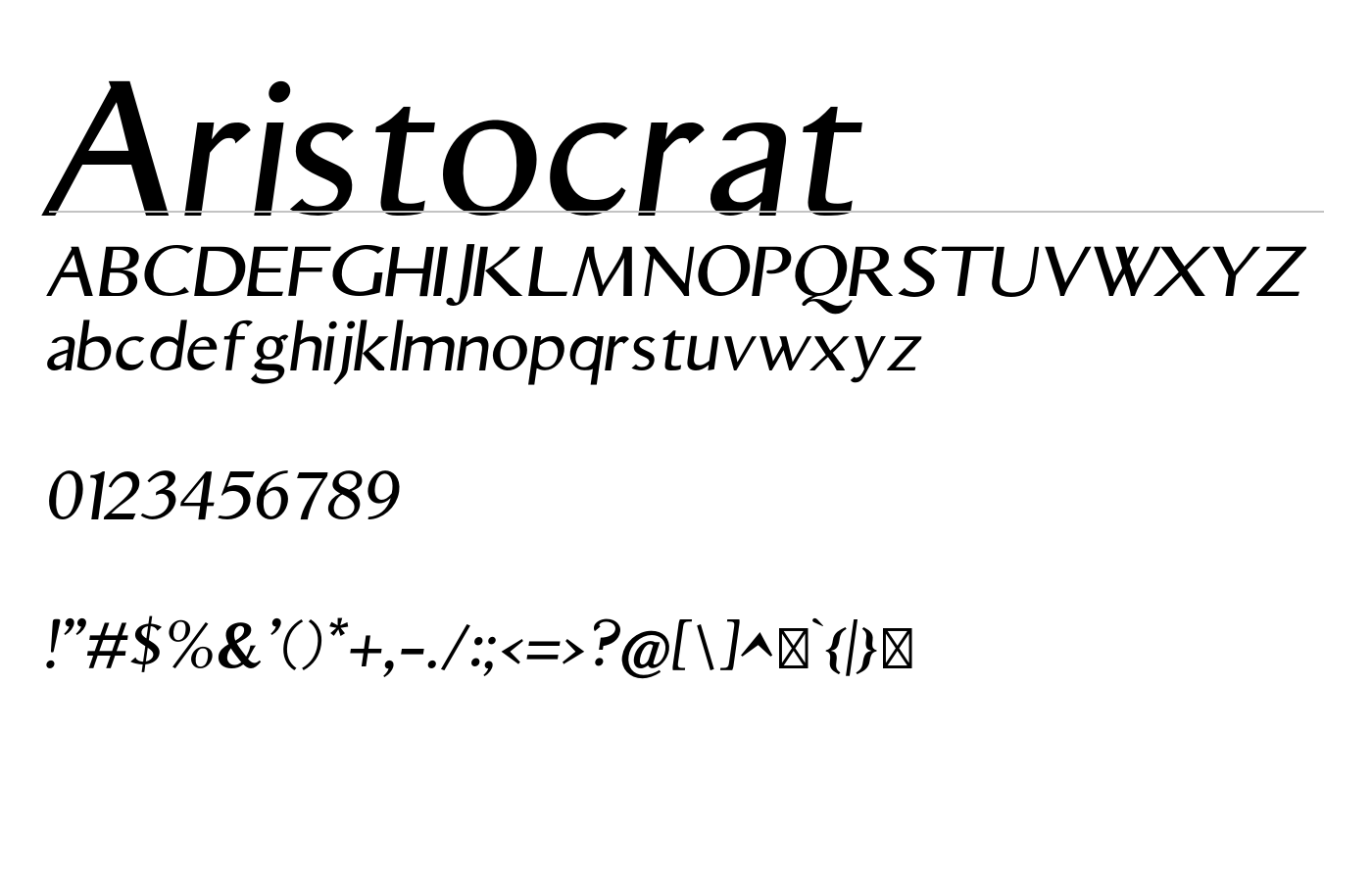
Aristocrat is an elegant serif font featuring a refined modern style with high contrast between thick and thin strokes. Its slightly condensed letterforms and delicate serifs give it a sophisticated and timeless feel, making it ideal for luxury branding, editorial headlines, and upscale packaging where a touch of class and tradition is desired. This font works well for designs that need to communicate elegance and authority with a polished, professional appearance.
Aristocrat Font
About Aristocrat Font
| Font family | Aristocrat Font |
| Designer | Ben Mahaffey |